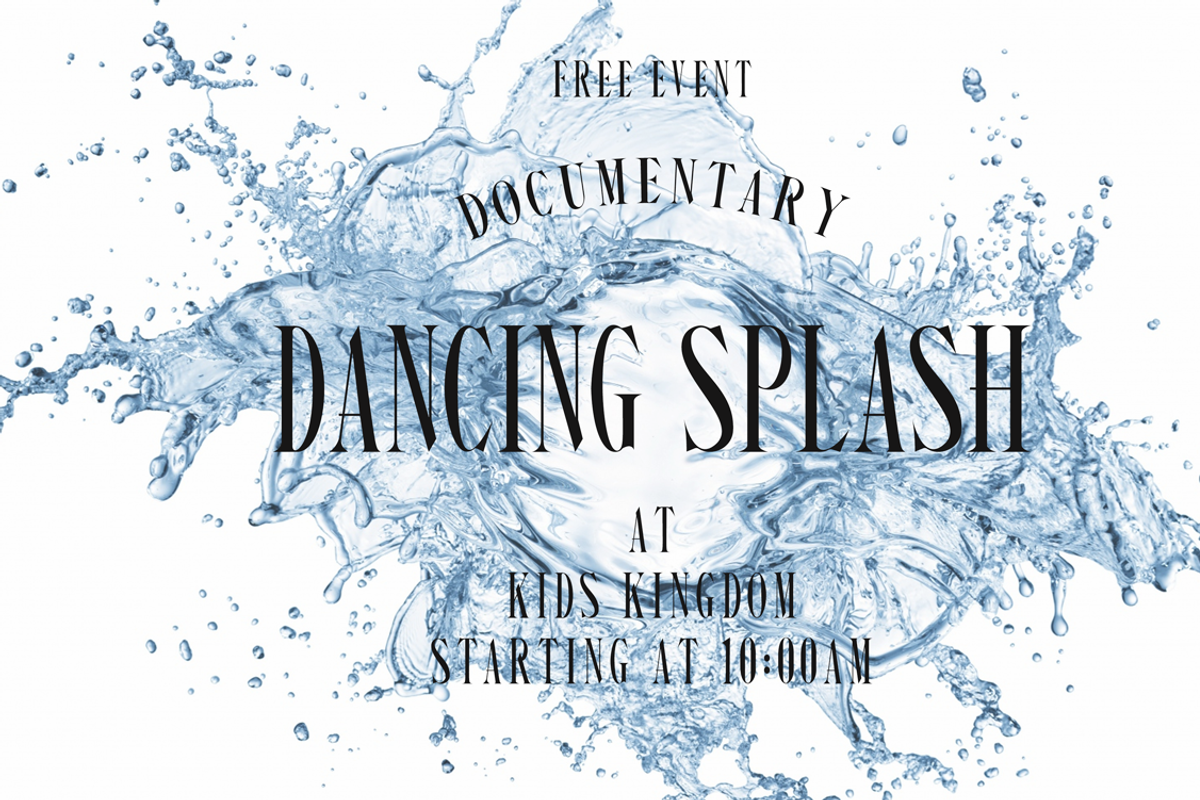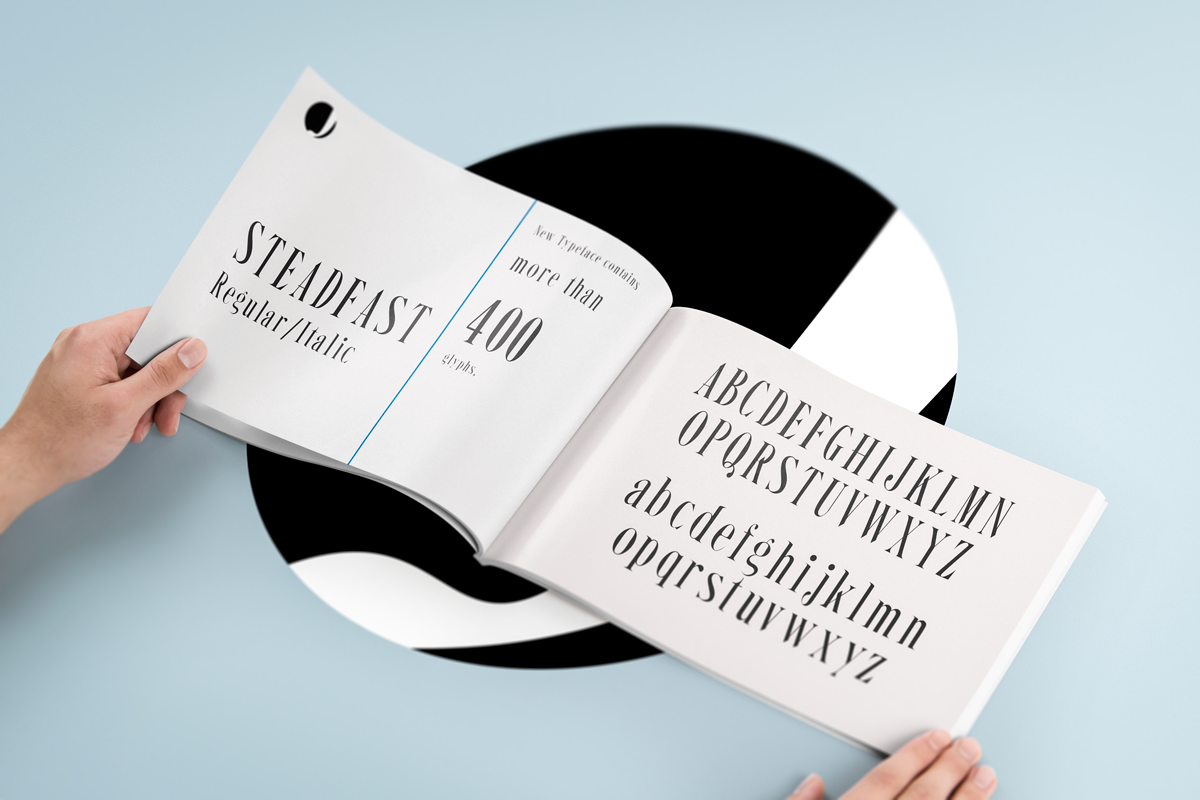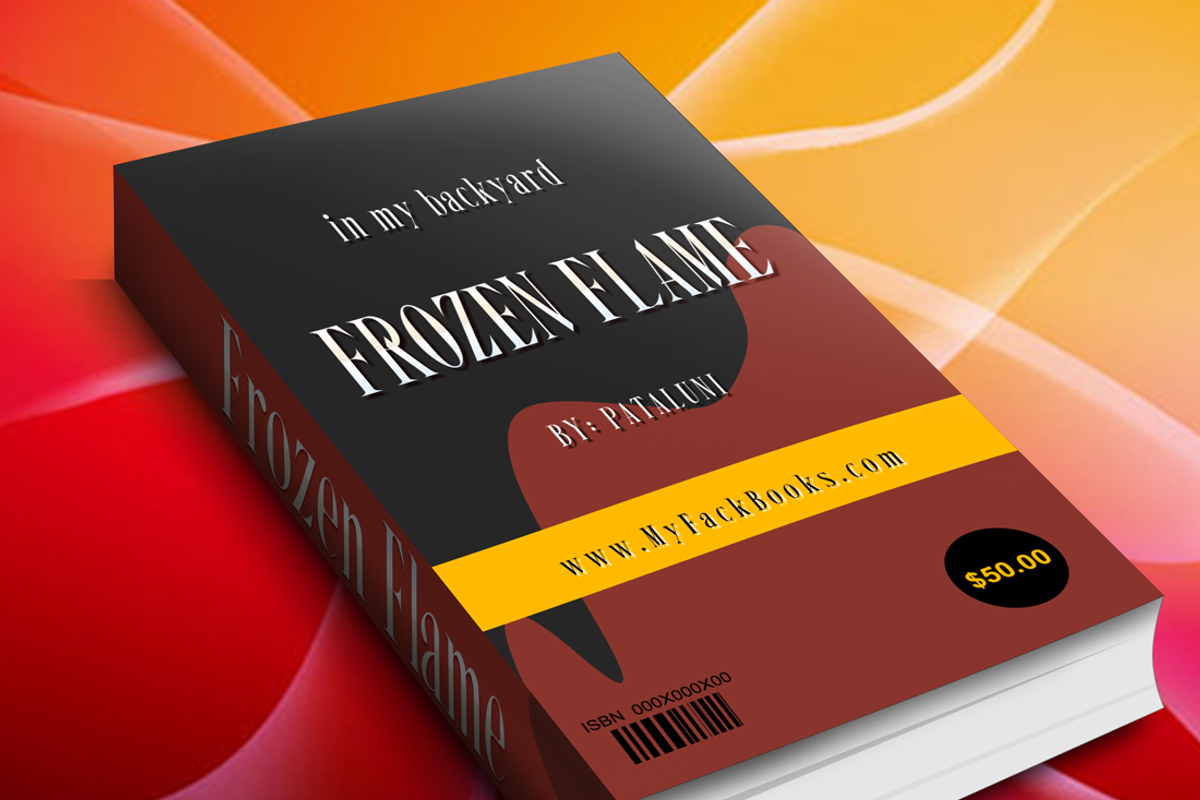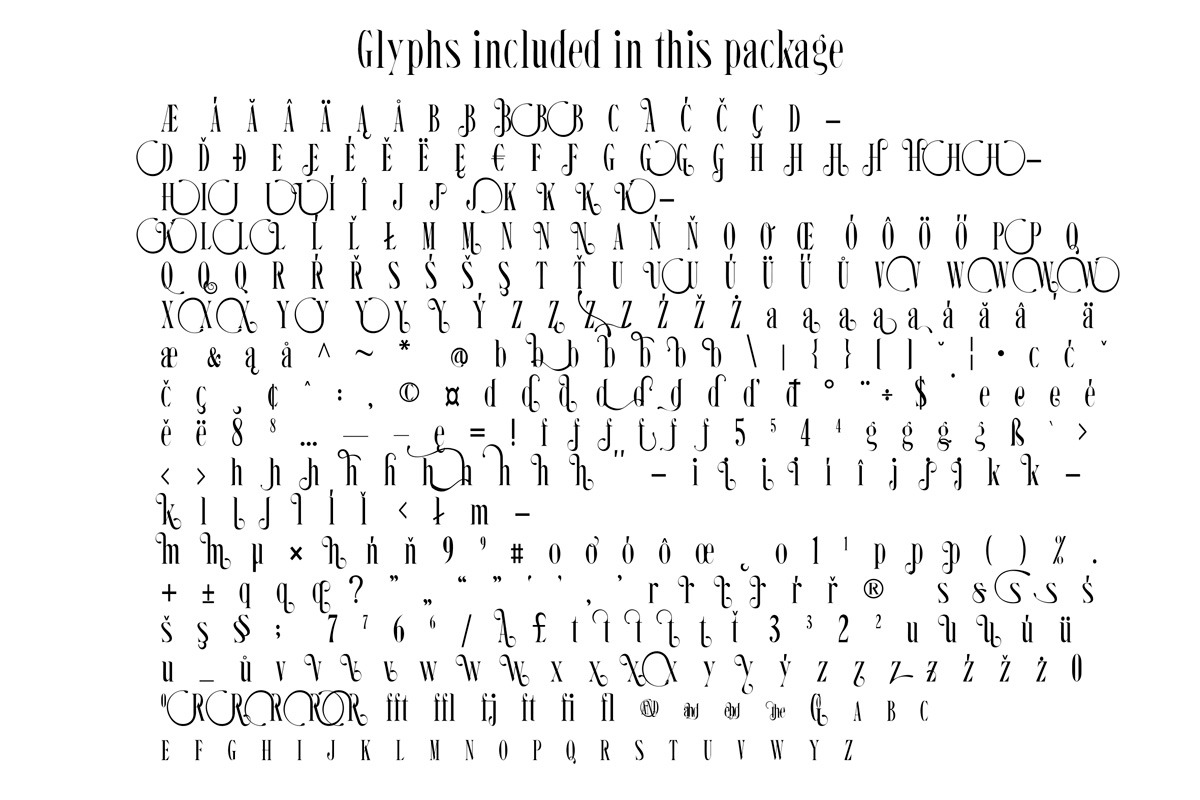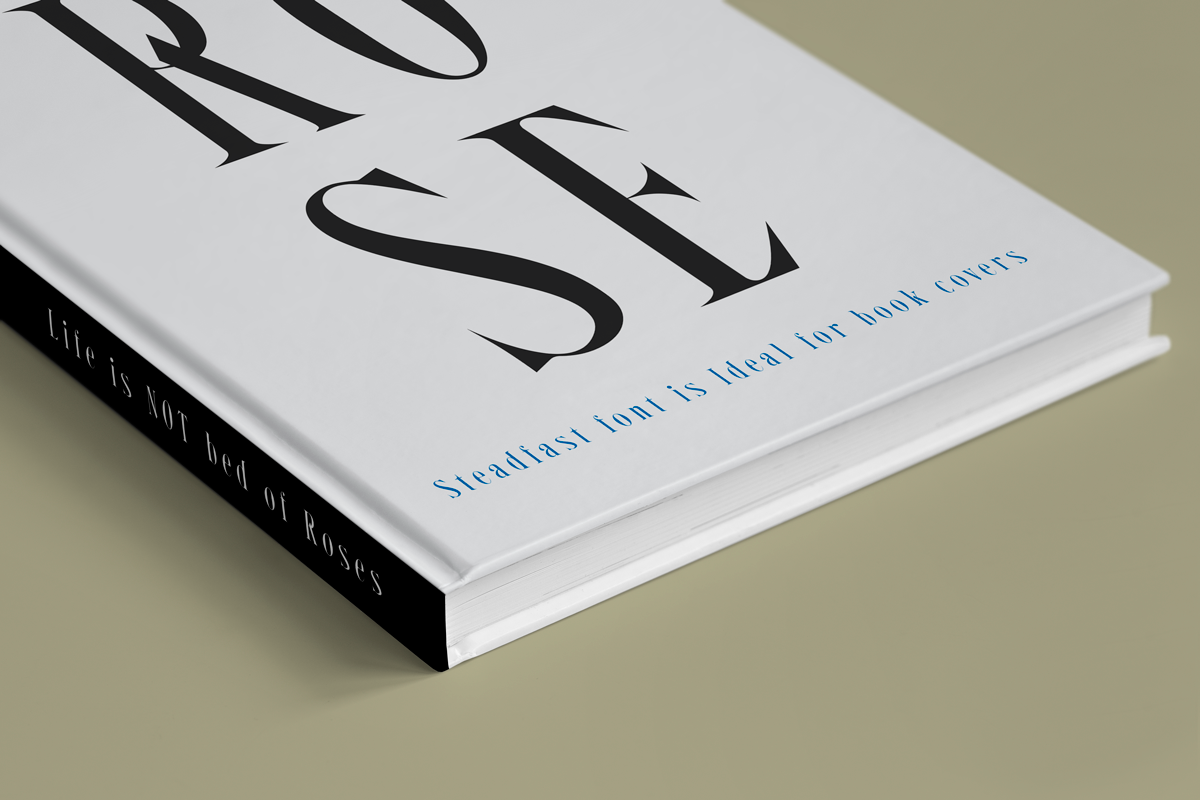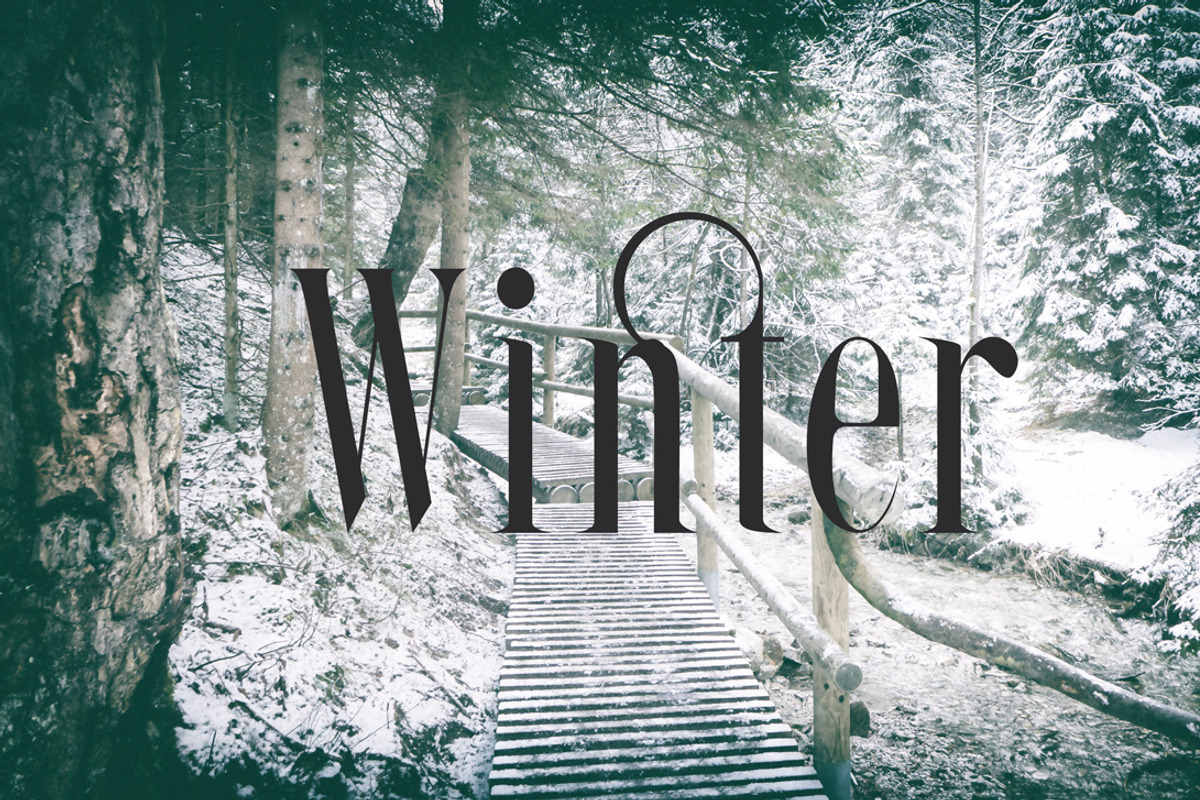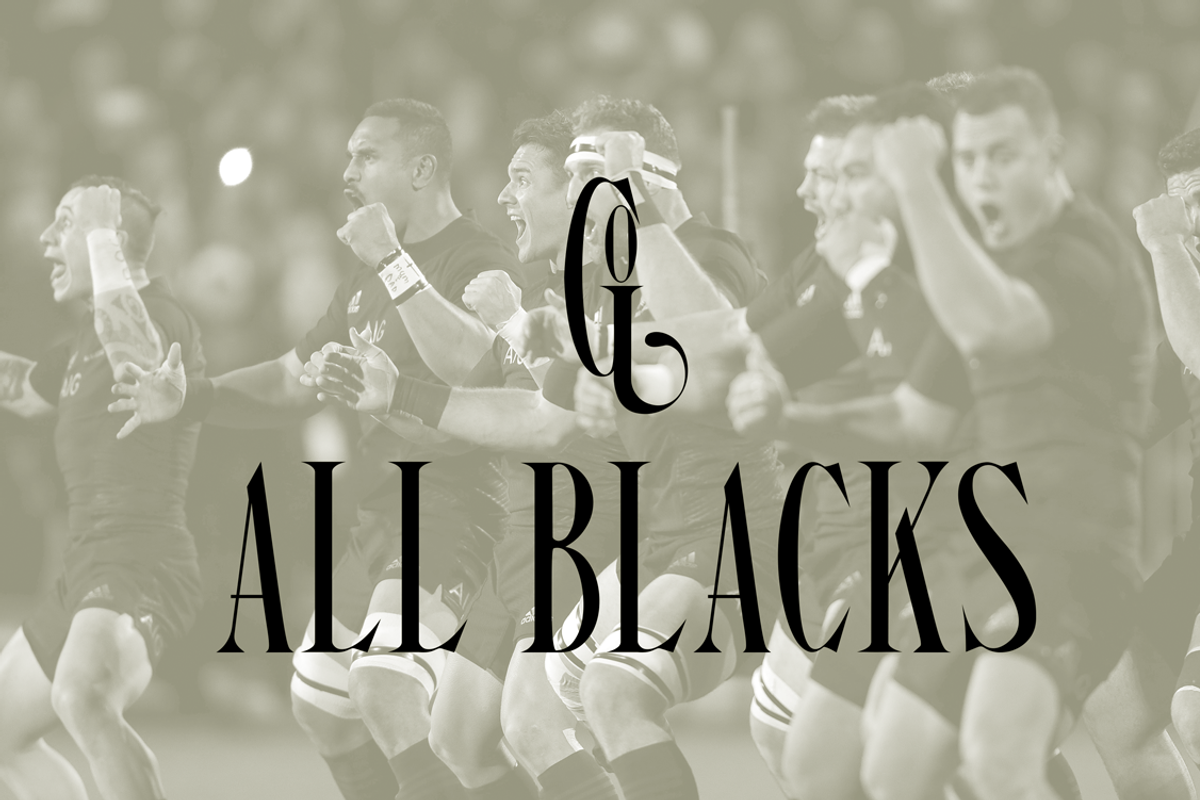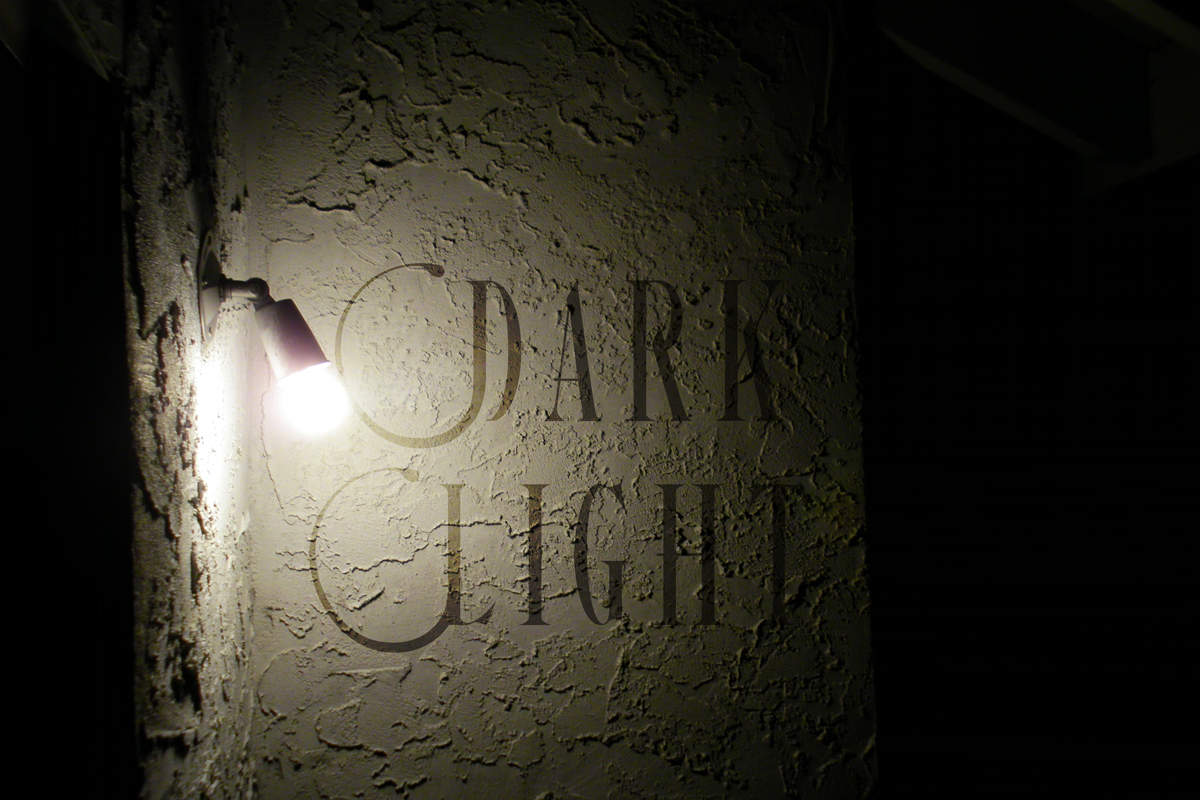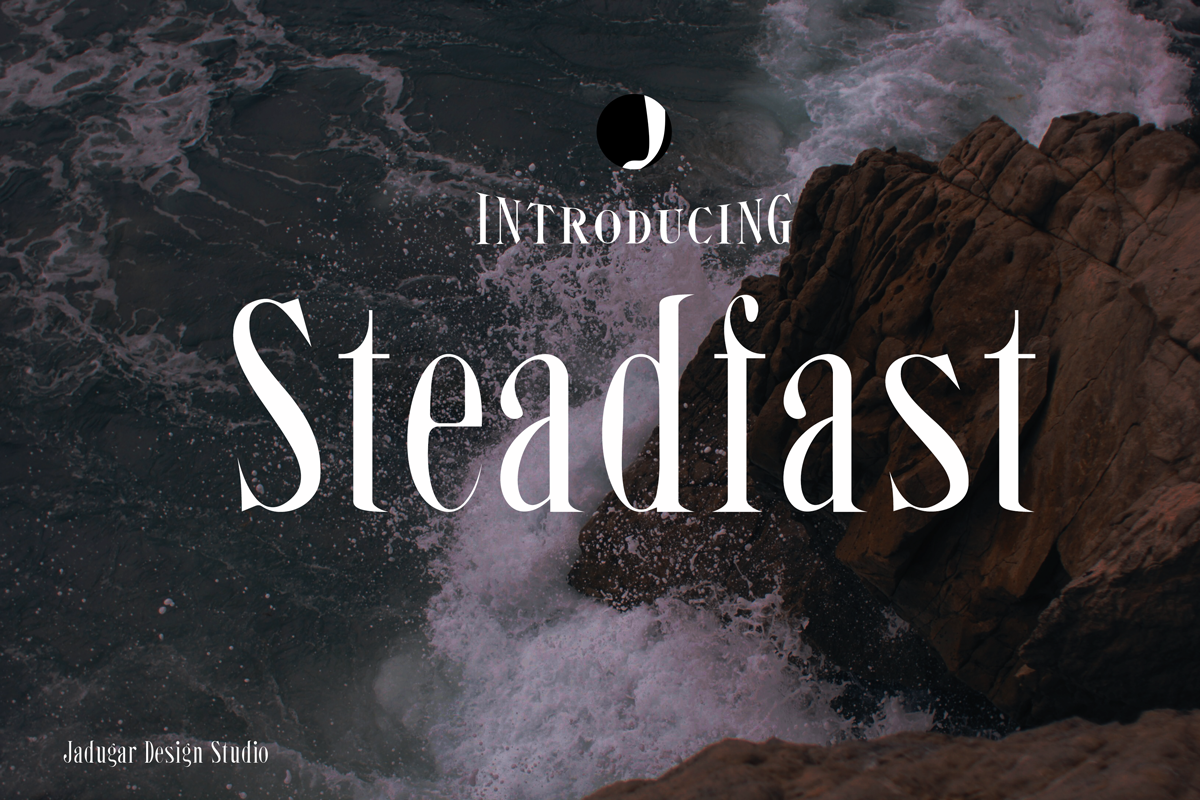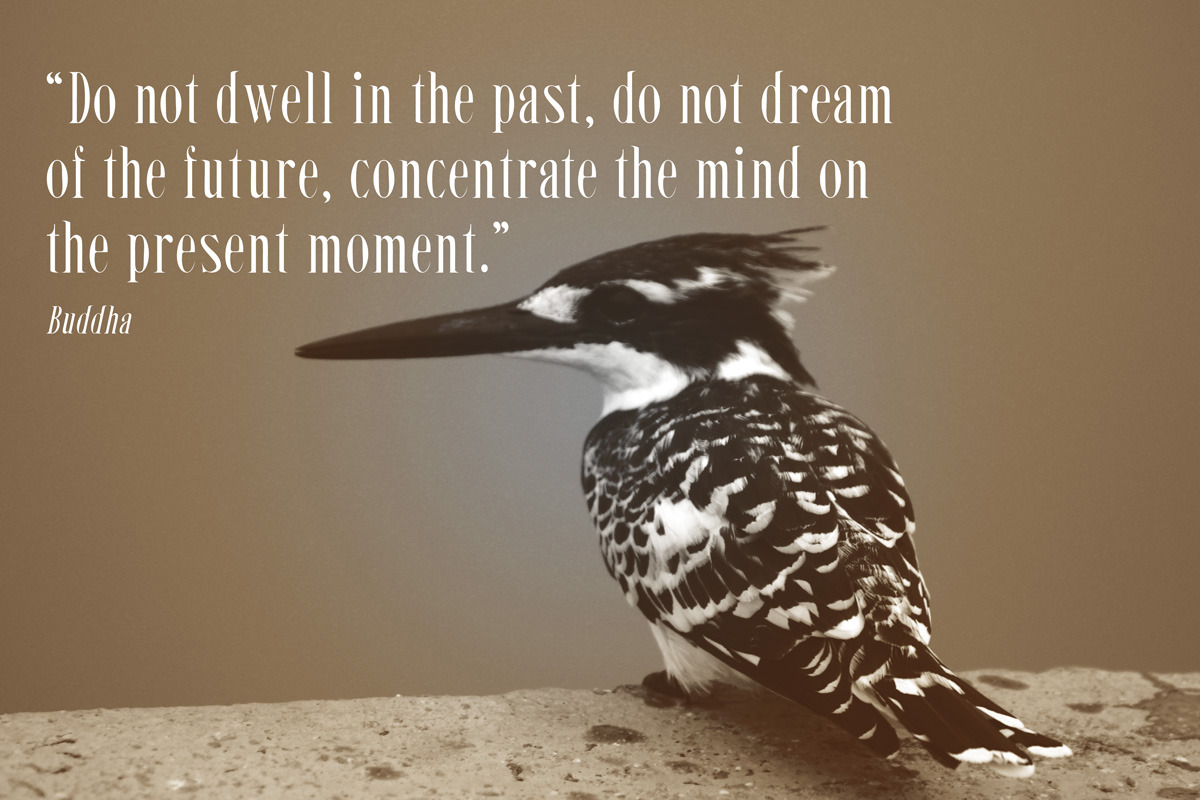
Steadfast Font
Here is another typeface, "Steadfast", after spending many hours on correcting the contours of this typeface, finally it is out for public release!!. Regular and Italic Promo offer is 50% off, that will not last forever.......Quickly grab this beautiful typeface and add in your favorites..... It is a blend of old condensed style with modern typography..... The font has stylish alternative glyphs which give modern touch.... Not saying more, try it..... feel free to contact and comment to improve the version.